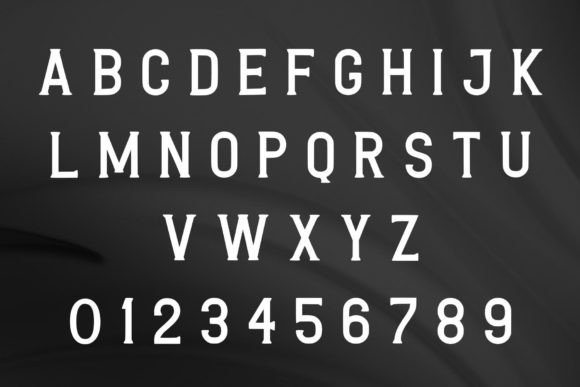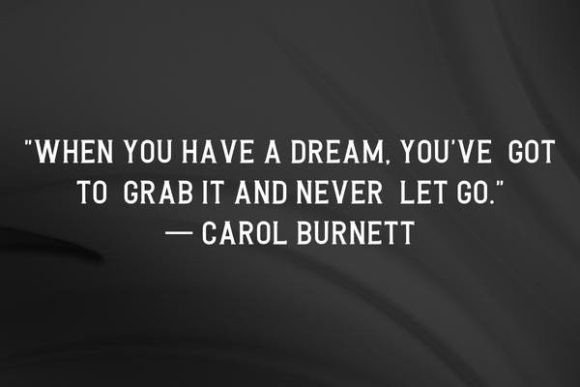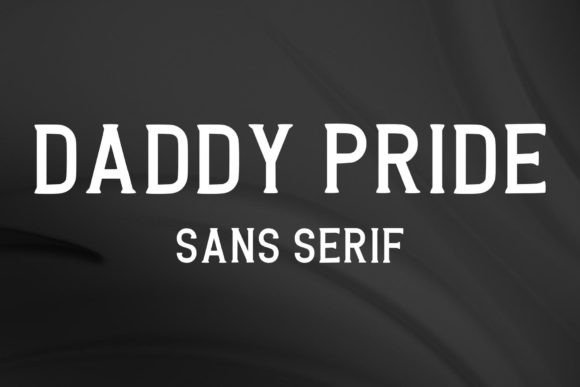
Daddy Pride Font: The Ultimate Choice for Designers and Crafters
In the world of typography, fonts play a crucial role in conveying messages, expressing emotions, and creating visual identities. For designers and crafters, finding the right font can make all the difference in their creative projects. If you’re looking for a versatile and impressive font, look no further than Daddy Pride Font. In this article, we’ll explore the features, benefits, and uses of Daddy Pride Font, and why it’s an excellent choice for your next design project.
What is Daddy Pride Font?
Daddy Pride Font is an all-caps sans serif font that boasts a modern and sleek design. Its clean lines, precise curves, and geometric shapes make it a stunning addition to any design project. The font’s versatility is one of its standout features, making it suitable for a wide range of applications, from logos and branding to web headings and more.
Key Features of Daddy Pride Font
- All-caps design: Daddy Pride Font is an all-caps font, which gives it a strong and confident look.
- Sans serif: The font’s sans serif design makes it easy to read and perfect for digital applications.
- Versatile: Daddy Pride Font can be used for various design projects, including logos, branding, web headings, and more.
- Modern and sleek: The font’s modern design ensures it will make a great impression on your audience.
Benefits of Using Daddy Pride Font
So, why should you choose Daddy Pride Font for your next design project? Here are some benefits of using this amazing font:
- Enhance your brand’s identity: With Daddy Pride Font, you can create a strong and memorable visual identity for your brand.
- Improve readability: The font’s clean design and sans serif style make it easy to read, even at small sizes.
- Increase versatility: Daddy Pride Font can be used for various design projects, saving you time and effort in finding multiple fonts.
- Make a great impression: The font’s modern and sleek design is sure to impress your audience and leave a lasting impression.
Uses of Daddy Pride Font
Daddy Pride Font is an incredibly versatile font that can be used in various design projects, including:
- Logos and branding: Create a strong and memorable visual identity for your brand with Daddy Pride Font.
- Web headings: Use the font to create stunning web headings that grab attention and improve readability.
- Signage and displays: Daddy Pride Font is perfect for creating eye-catching signage and displays.
- Packaging and labels: Add a touch of modernity to your packaging and labels with this amazing font.
Tips for Using Daddy Pride Font
To get the most out of Daddy Pride Font, here are some tips to keep in mind:
- Experiment with font sizes: Daddy Pride Font looks great at various font sizes, so experiment to find the perfect size for your design.
- Pair with other fonts: Try pairing Daddy Pride Font with other fonts to create a unique and visually appealing design.
- Use it consistently: Use Daddy Pride Font consistently across your design project to create a strong and cohesive visual identity.
In conclusion, Daddy Pride Font is an excellent choice for designers and crafters looking for a versatile and impressive font. Its all-caps sans serif design, modern look, and versatility make it perfect for various design projects. With its numerous benefits, including improved readability, increased versatility, and the ability to make a great impression, Daddy Pride Font is sure to become a staple in your font collection. So, why wait? Download Daddy Pride Font today and take your design projects to the next level!